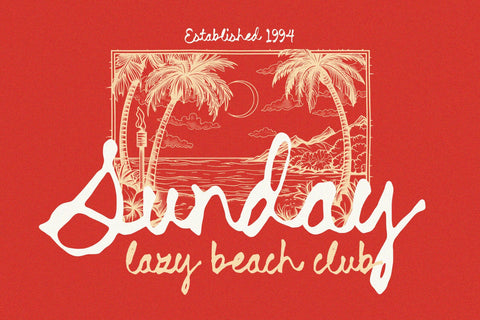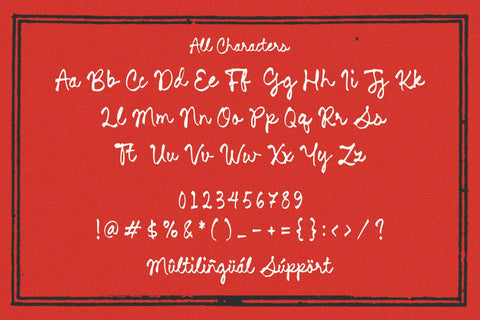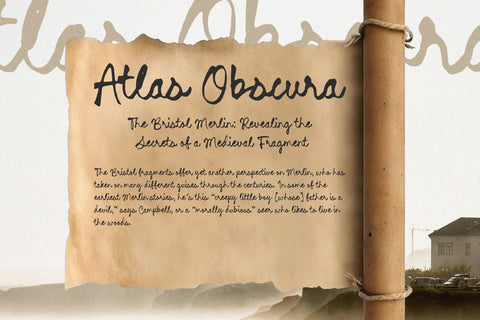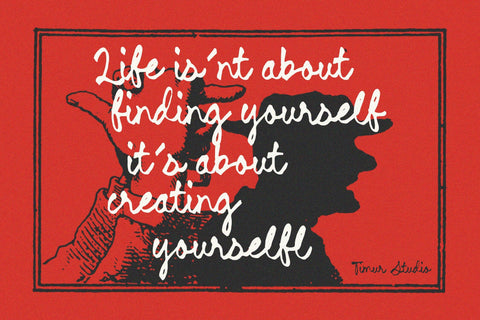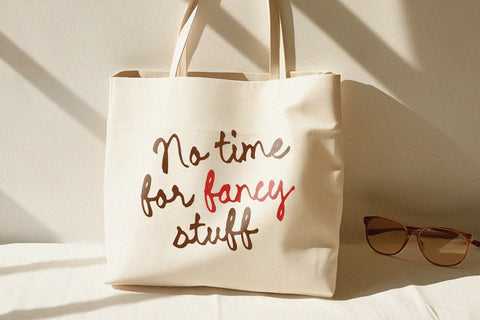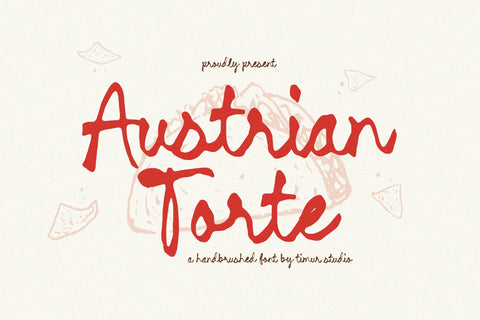
Austrian Torte - Handbrushed Font
Austrian Torte is a Handbrushed Font
This font is a charming handbrushed font that embodies the elegance and craftsmanship of traditional Austrian baking. Its flowing strokes and gentle curves evoke the artistry of hand-painted signage, making it perfect for designs that seek a blend of sophistication and handmade charm. Whether used for menus, invitations, or branding, "Austrian Torte" adds a touch of artisanal flair, reminiscent of the meticulous detail found in Viennese patisseries.
Austrian Torte also supports multilingualism